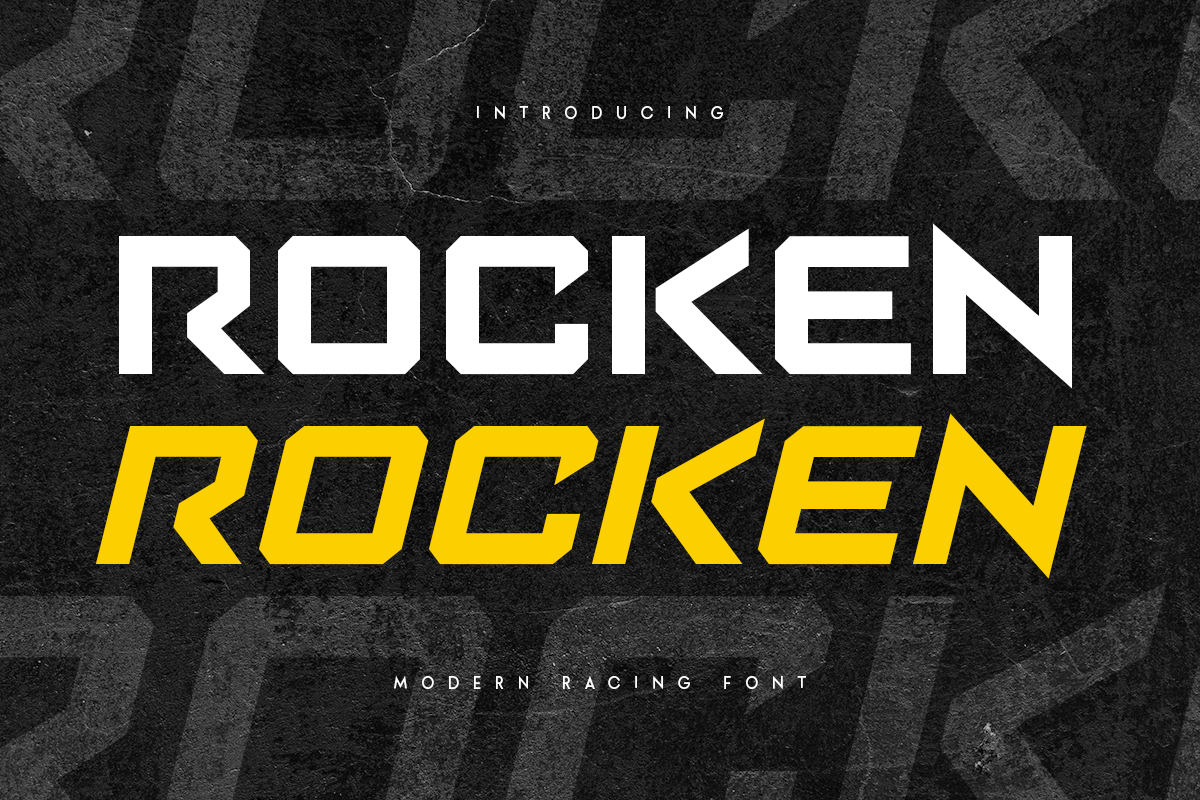
Rocken -Futuristic Racing Sport Font
Rocken delivers the ultimate futuristic racing font that merges high-speed thrills with blockbuster movie excitement. This dynamic and bold sans serif typeface brings together the adrenaline of racing culture with cutting-edge sci-fi aesthetics, making it the perfect choice for any high-energy project that demands attention. Rocken Font Features: Futuristic Design: Sleek and modern styling ideal for race car themes and sci-fi projects Versatile Applications: Perfect for racing events, automotive...